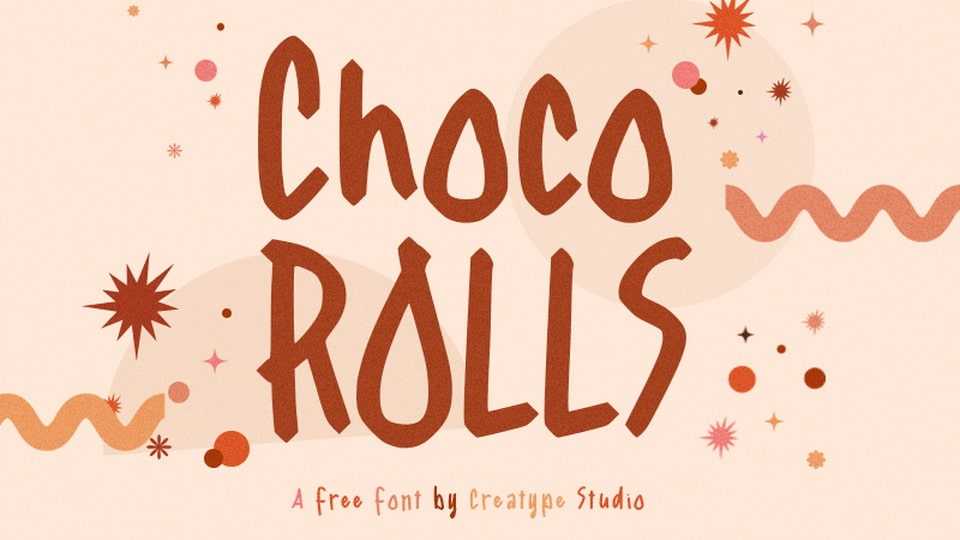
Download Choco Rolls font, a playful and quirky hand-crafted typeface brimming with personality. Its irregular shapes and whimsical details create a lighthearted, cheerful vibe.